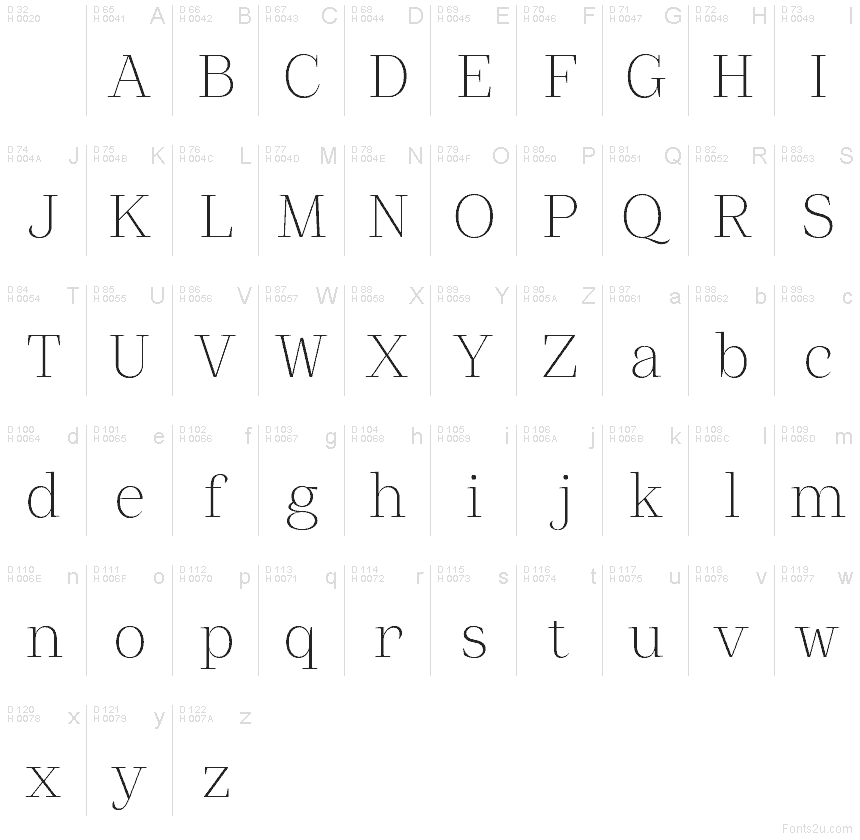
Klimaks Demo Regular
Klimaks font by Kereatype Studio is a light serif font that features sleek and elegant letters with modern aesthetics. Each character mimics the exact appearance of elements in nature under high temperature and pressure, making this font suitable for those seeking sophistication and elegance. Its professional tone makes this light-weight typeface trendy among a wide variety of audiences.
Integrate Klimaks into apparel branding, logo projects, website headers, advertising purposes, magazine covers, card decorations, interior decoration designs and book cover designs. Artists can also use it to create wonderful wallpaper patterns to dress up residential or commercial spaces or to improve their painting collections.